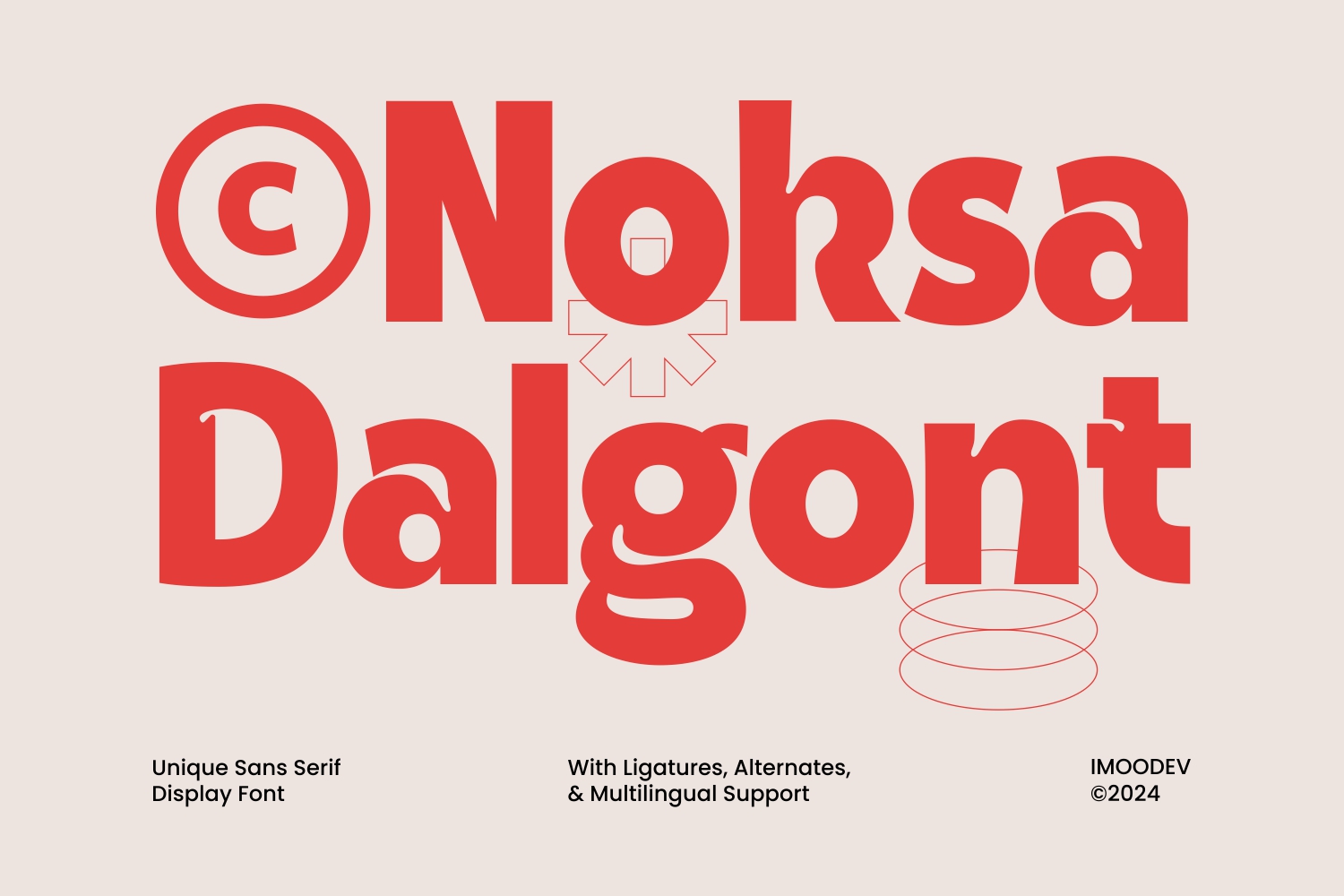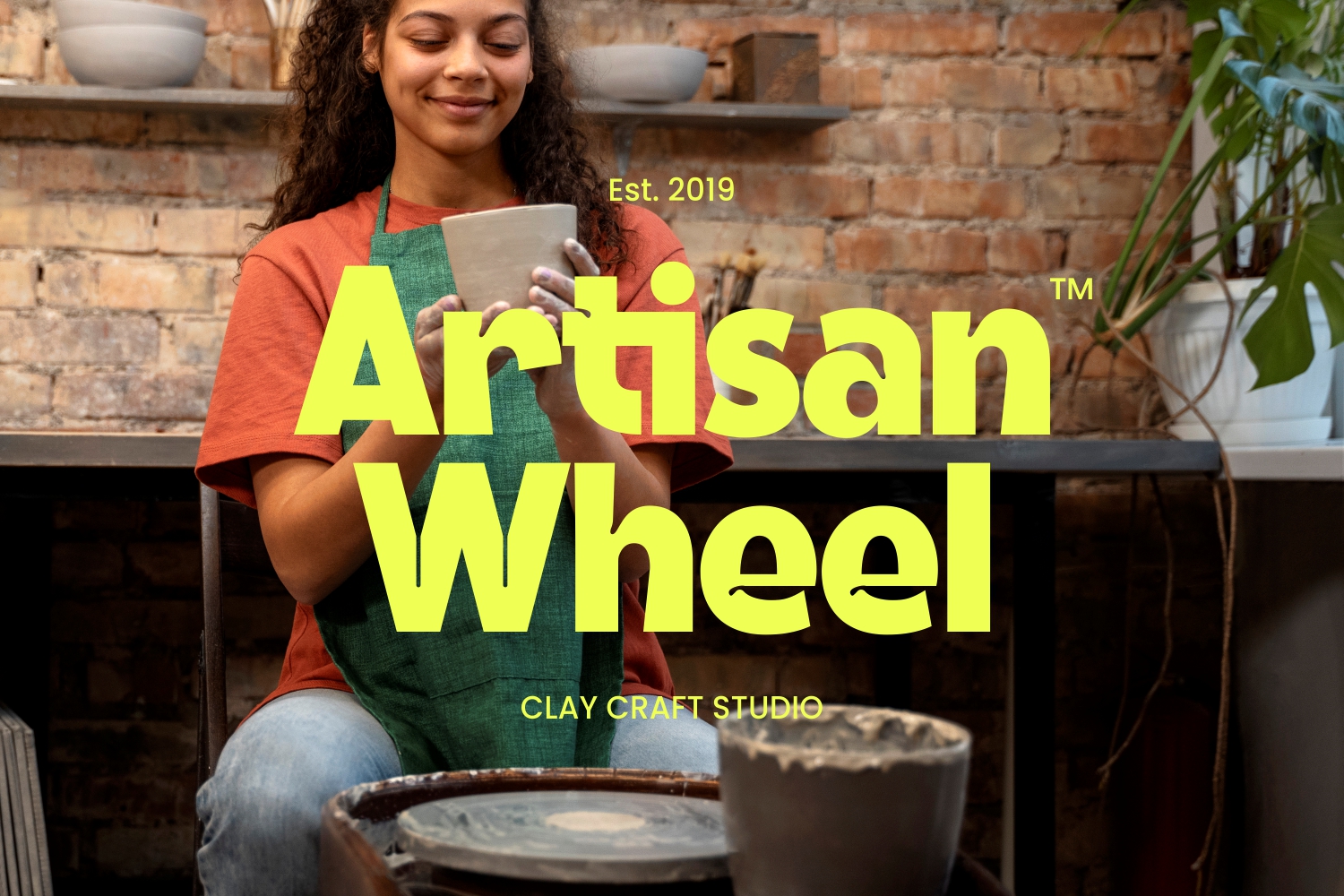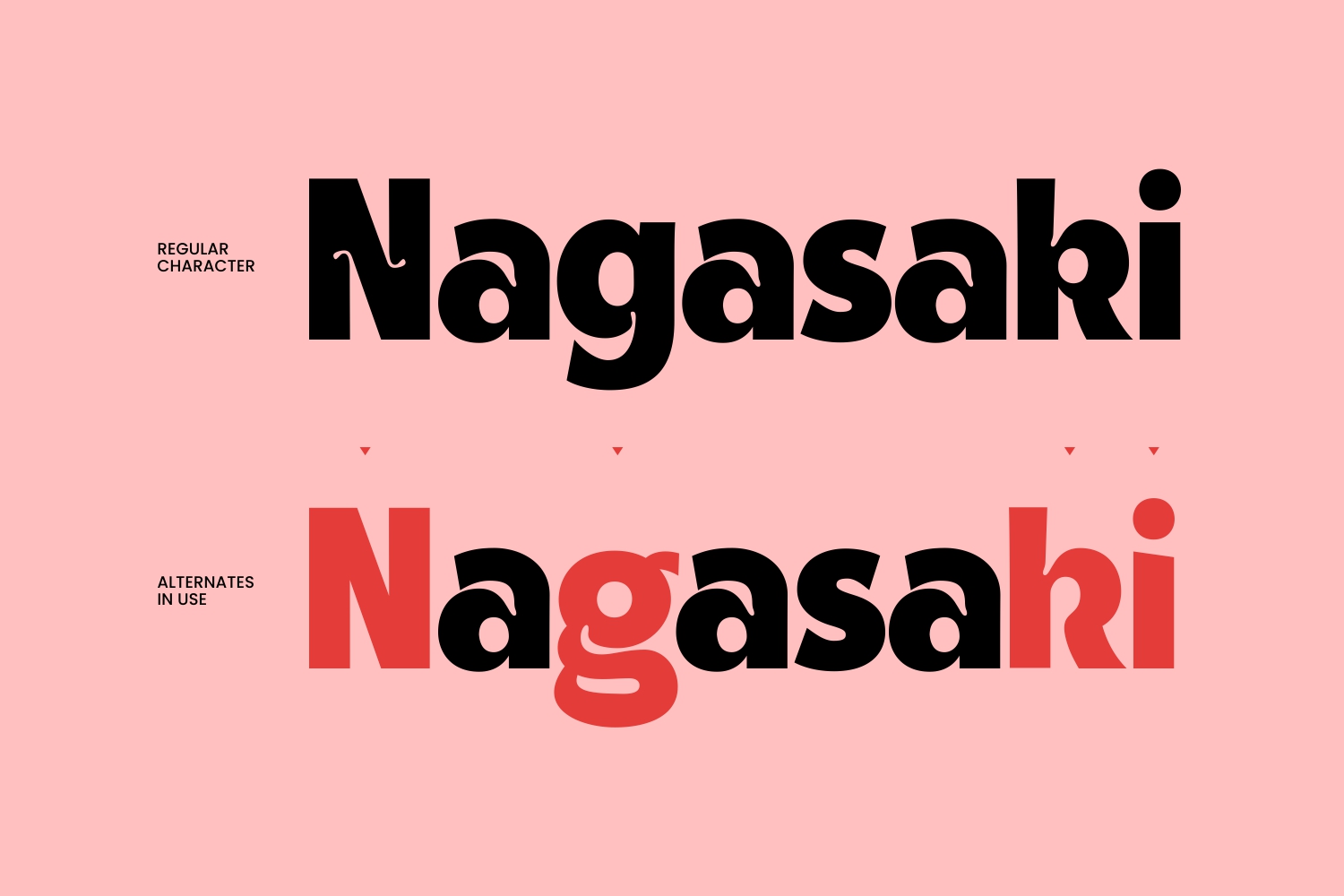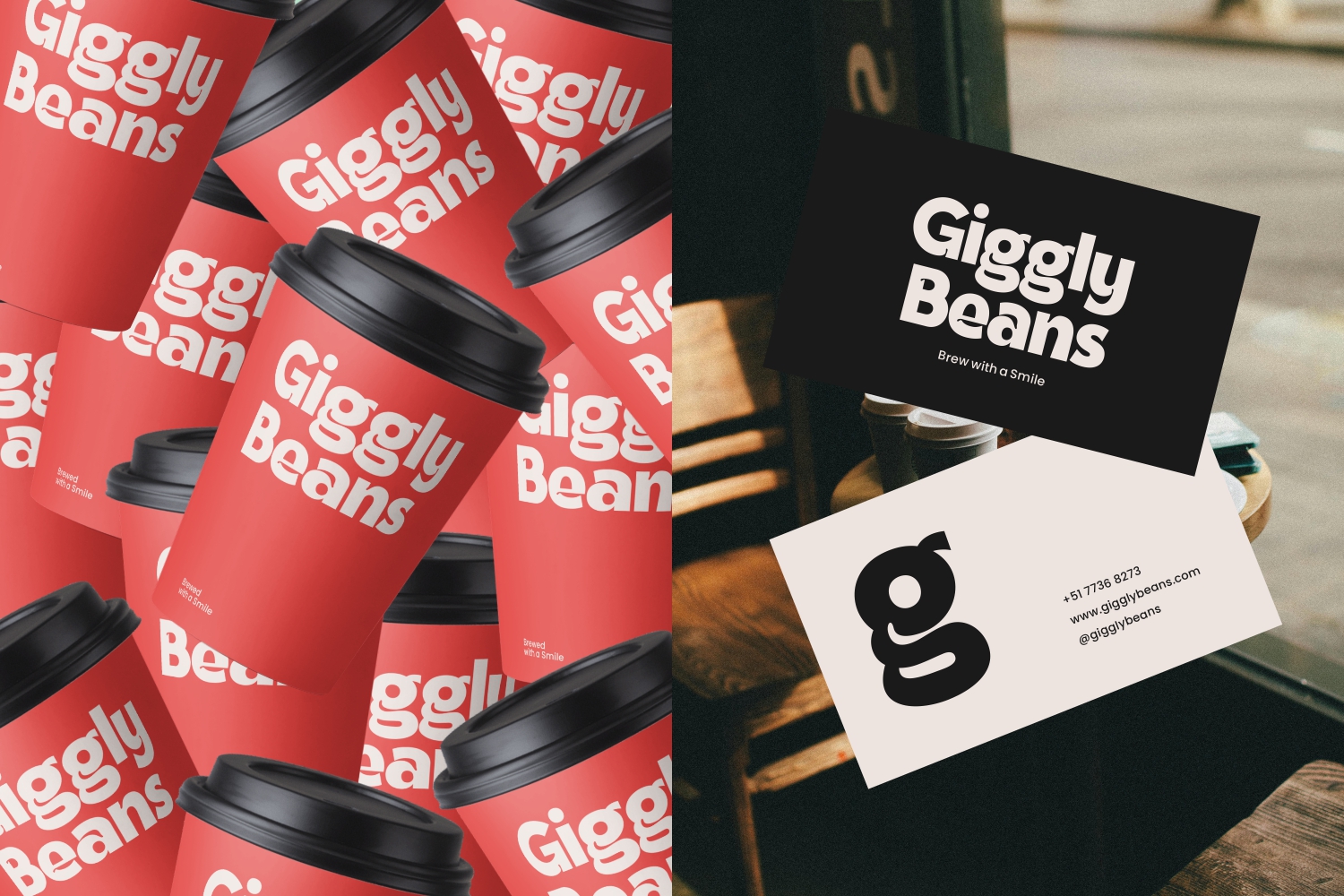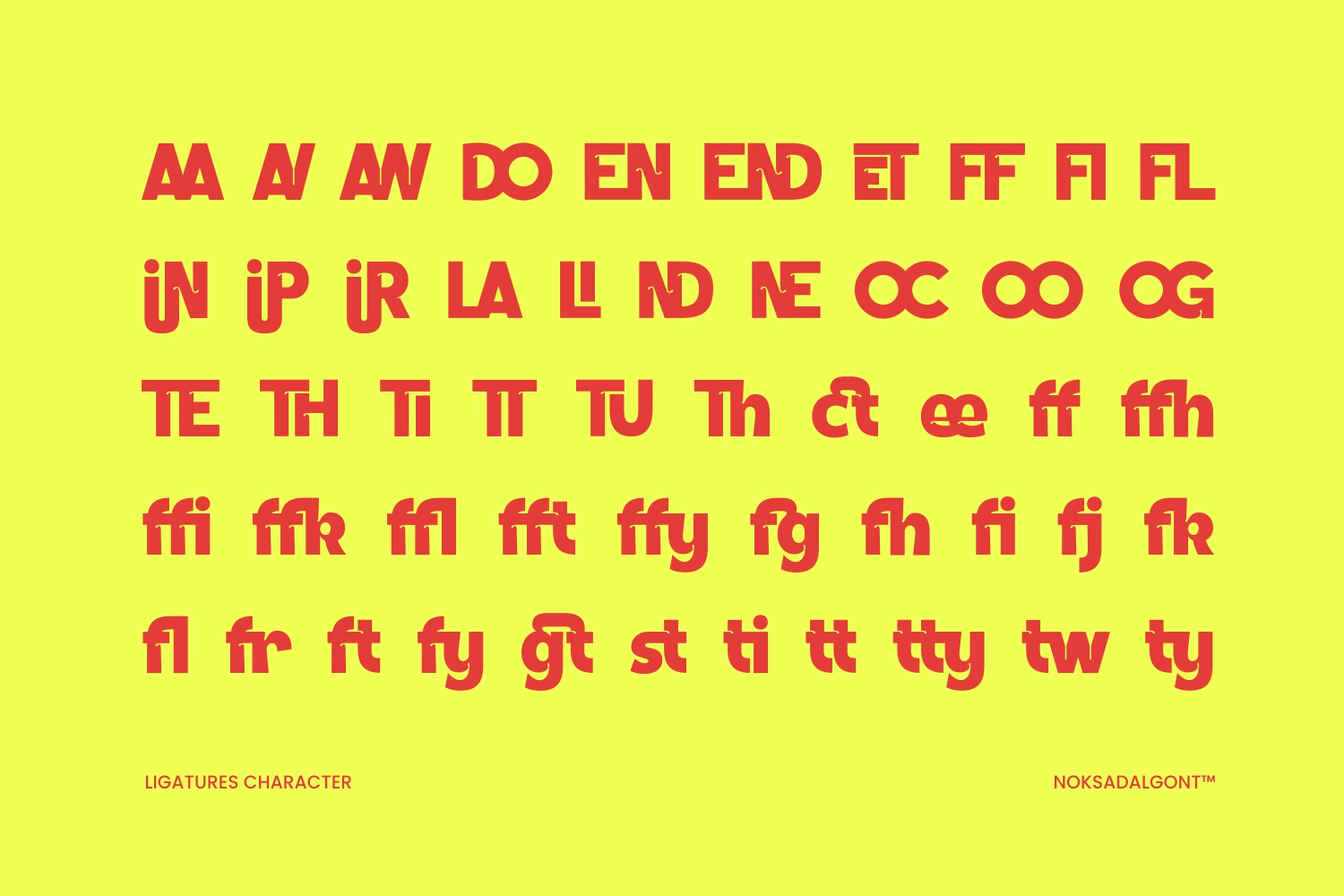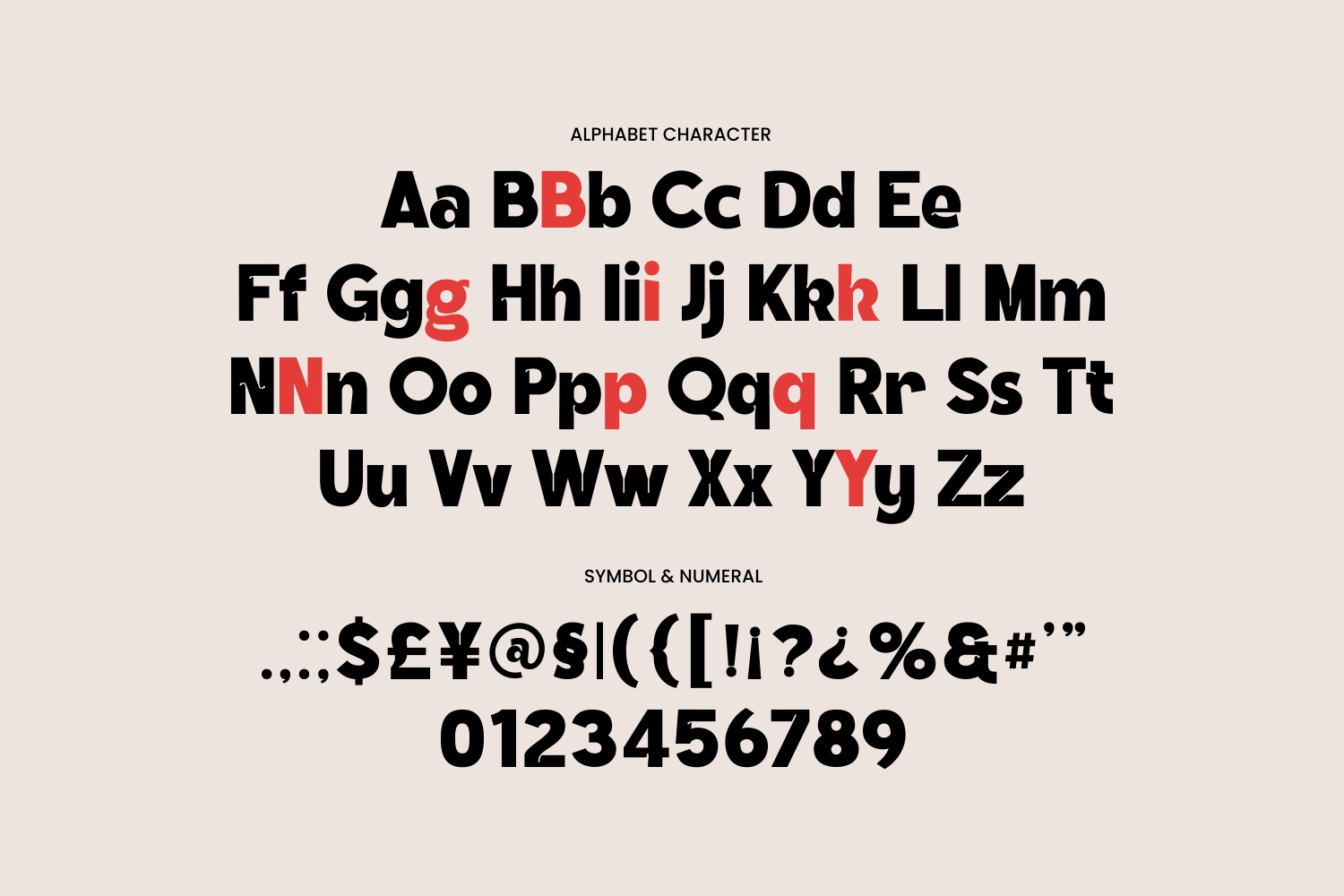
Noksa Dalgont is a bold and playful sans serif display font that blends geometric precision with quirky character details. Its rounded shapes and unique letterform alternates create a friendly yet impactful visual style, perfect for catching attention in logos, headlines, and modern branding. The font features creative ligatures and stylistic alternates that bring extra personality to your designs, making every composition look dynamic and engaging.
With multilingual support, versatile symbols, and carefully crafted letter spacing, Noksa Dalgont works beautifully for packaging, posters, merchandise, and editorial layouts. Whether you’re designing for a coffee brand, artisan shop, or bold advertising campaign, this font delivers a fresh and confident aesthetic that stands out across both print and digital media.